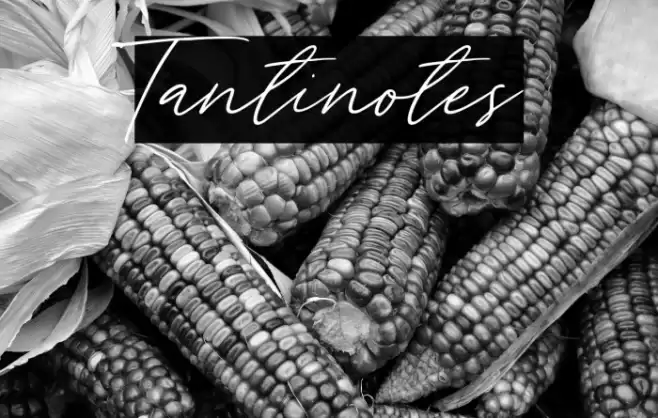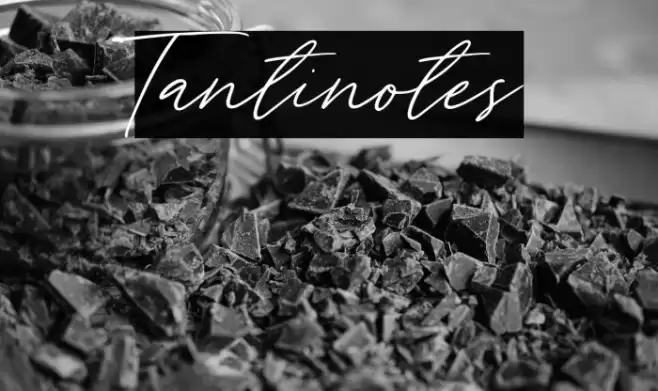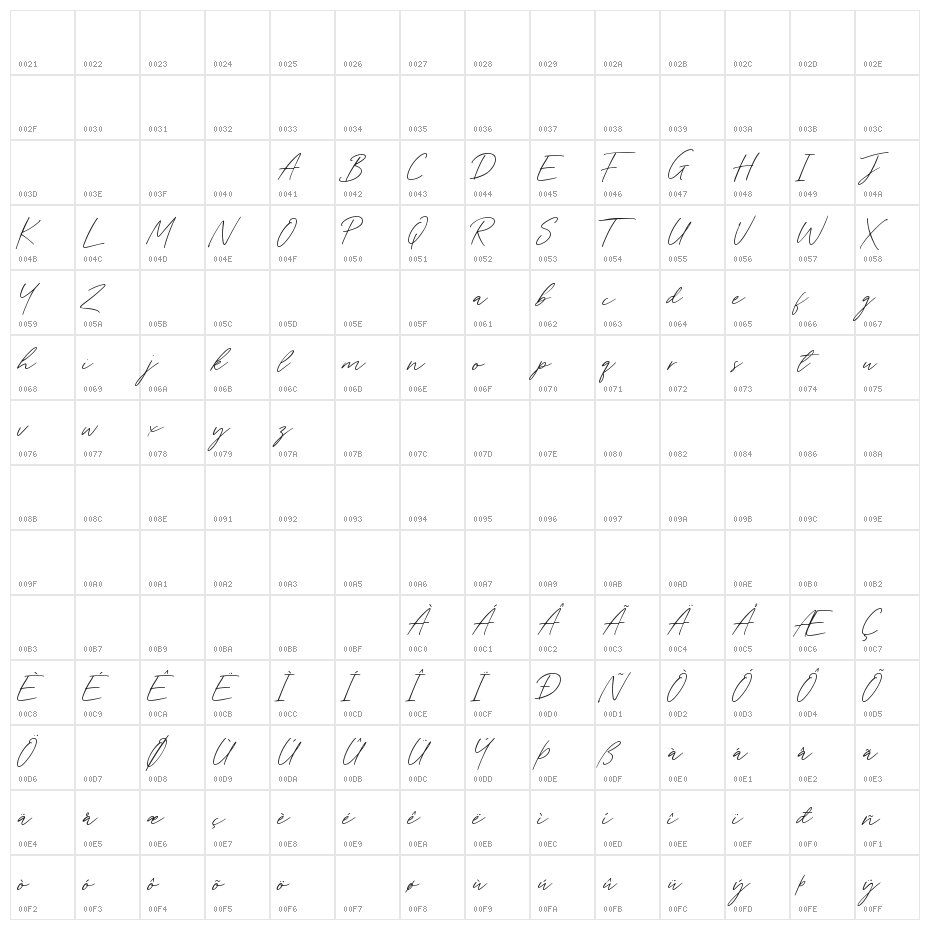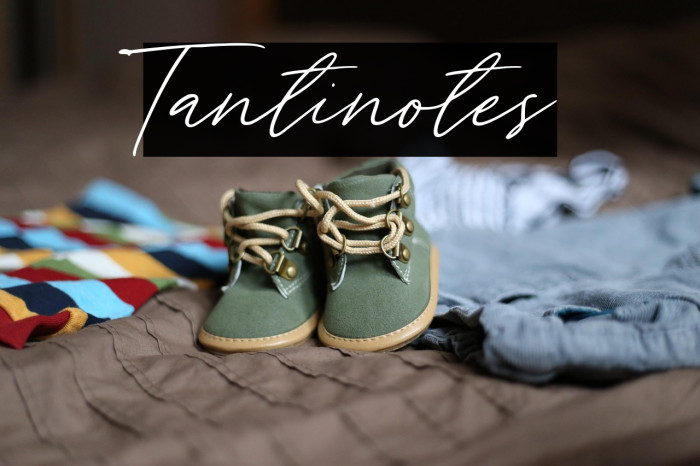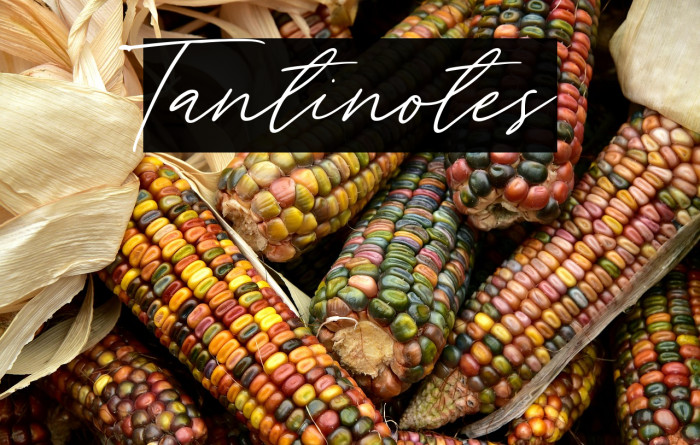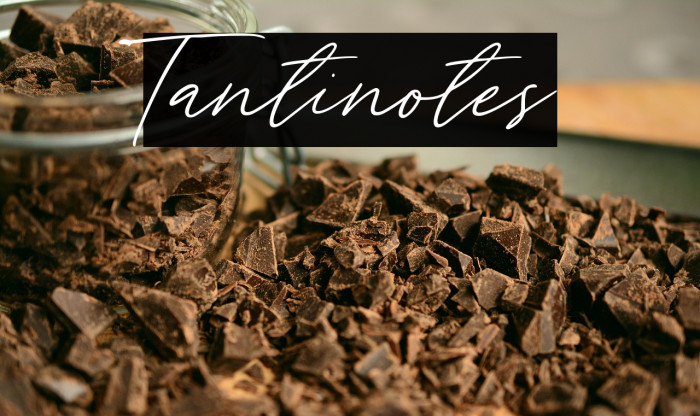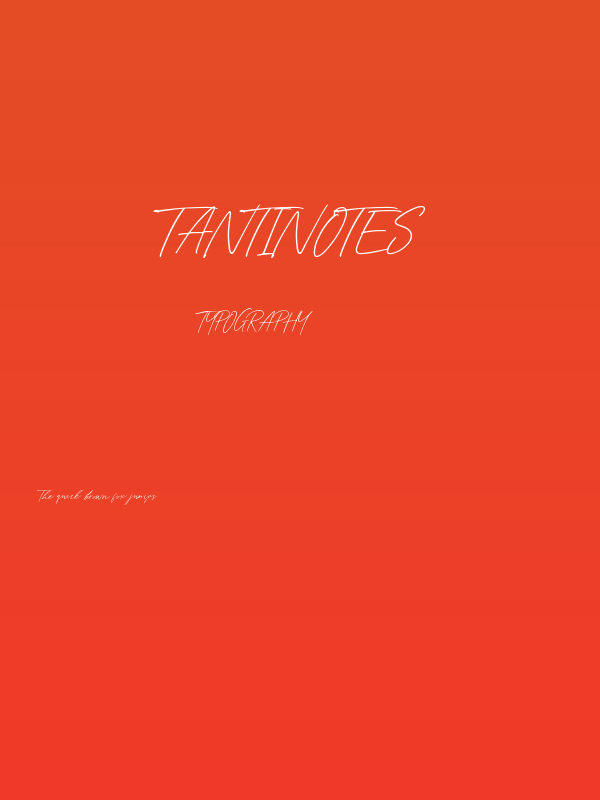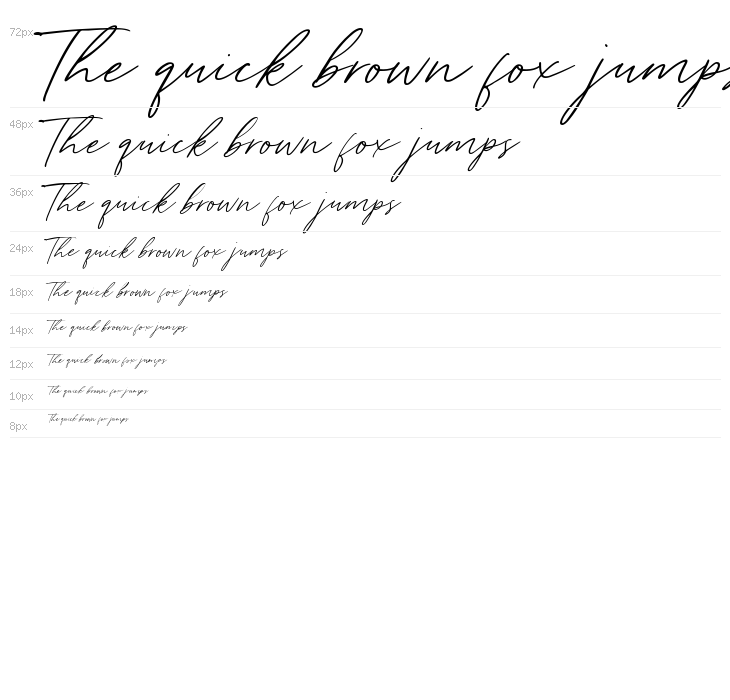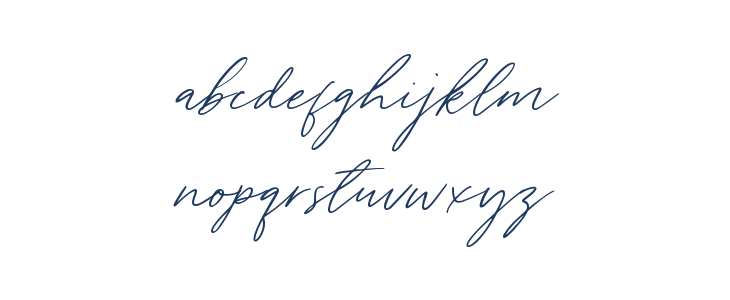
Tantinotes Font
Tantinotes Description
This font features a stylish and elegant script design with a handwritten feel. The characters are fluid and connected, giving it a natural and personal touch. The uppercase letters are tall and slightly slanted, while the lowercase letters maintain a consistent flow with graceful curves. The overall appearance is sophisticated yet approachable, making it suitable for a variety of creative projects. The font's thin strokes and delicate lines add a sense of refinement, while the slight variations in stroke width provide a dynamic and lively character.
A stylish, elegant script font with a handwritten feel and fluid, connected characters from Uncategorized fonts.
- Proposed Projects: Ideal for wedding invitations, greeting cards, personal branding, and elegant packaging designs.
- Weight: Light
- Overall Style: Elegant
- Use Case: Logos, Invitations, Personal Branding